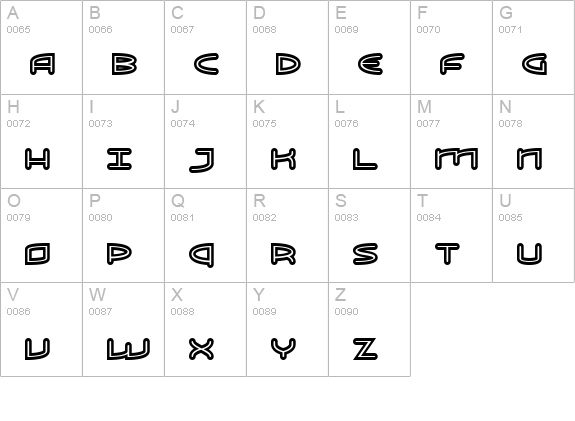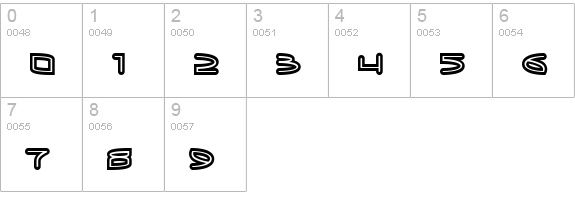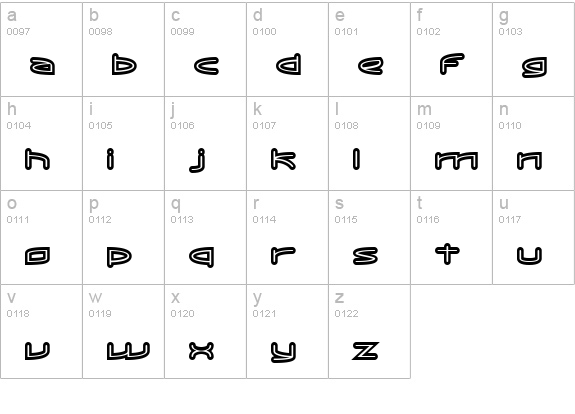
ReadOutSuper Font Details
Introducing ReadOutSuper, a sleek and modern font that will take your typography game to the next level. With its clean lines and sharp edges, ReadOutSuper is the perfect choice for designs that require a bold and eye-catching appearance. This free font offers a wide range of versatility, making it suitable for various projects, from logos and branding to posters and websites. Its distinct and legible letterforms ensure readability across different mediums, guaranteeing that your message will be effectively communicated to your audience. ReadOutSuper is not only visually appealing but also incredibly easy to work with. Its well-designed characters flow seamlessly together, creating a harmonious balance that elevates any design. Whether you're a seasoned designer or just starting out, this font will provide you with the tools you need to bring your creative visions to life. And the best part? ReadOutSuper is freely available to download at FontsMarket.com. This means that you can access this incredible font without any cost, making it a valuable asset for both personal and commercial projects. FontsMarket.com offers a hassle-free downloading process, ensuring that you can start using ReadOutSuper in no time. Don't miss out on the opportunity to enhance your designs with the elegance and sophistication of ReadOutSuper. Download this free font from FontsMarket.com today and let your creativity shine like never before.